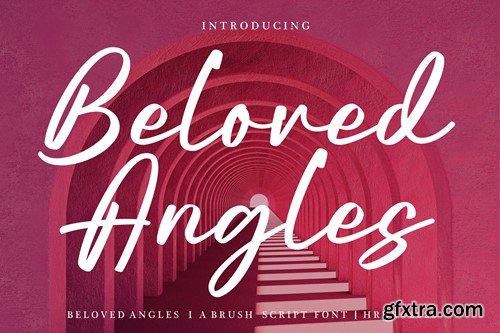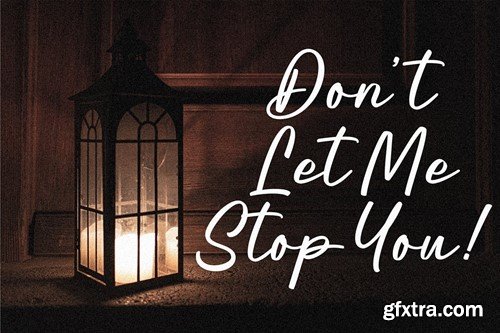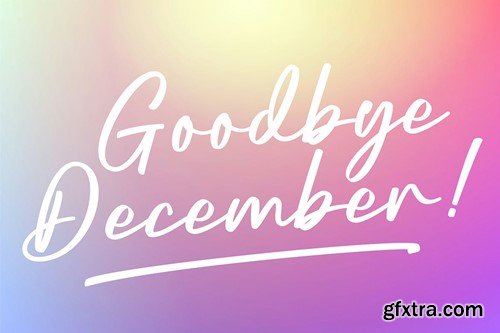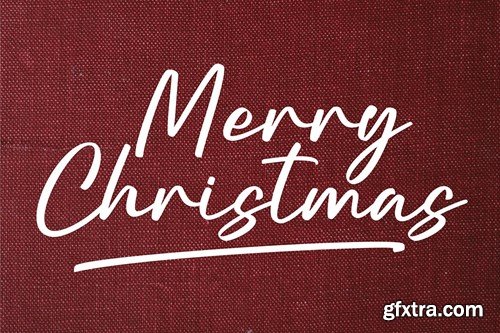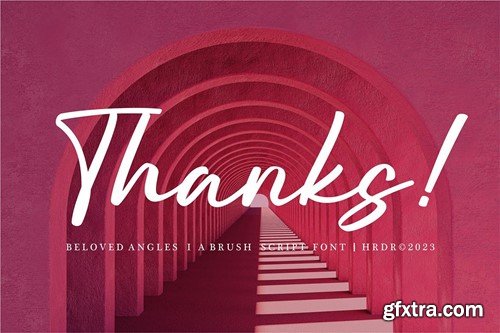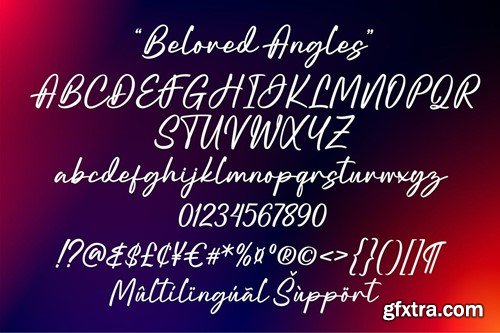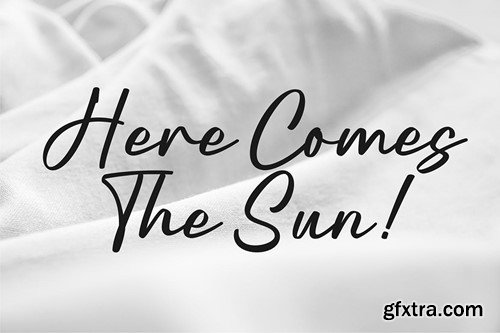
Beloved Angles - Brush Script Font
Beloved Angles Font is a Brush Script font. It's perfect for branding, for crafting,invitation, stationery, wedding designs, social media posts, advertisements, product packaging, product designs, label, Posters, photography, special events, or anything. Beloved Angles comes with a full set of uppercase and lowercase letters, ligatures, multilingual symbols, numerals, and punctuation. Beloved Angles files with OTF and TTF file and support PUA Encoded font files for use with software that doesn't support OpenType features such as Silhouette, Inkscape, etc.